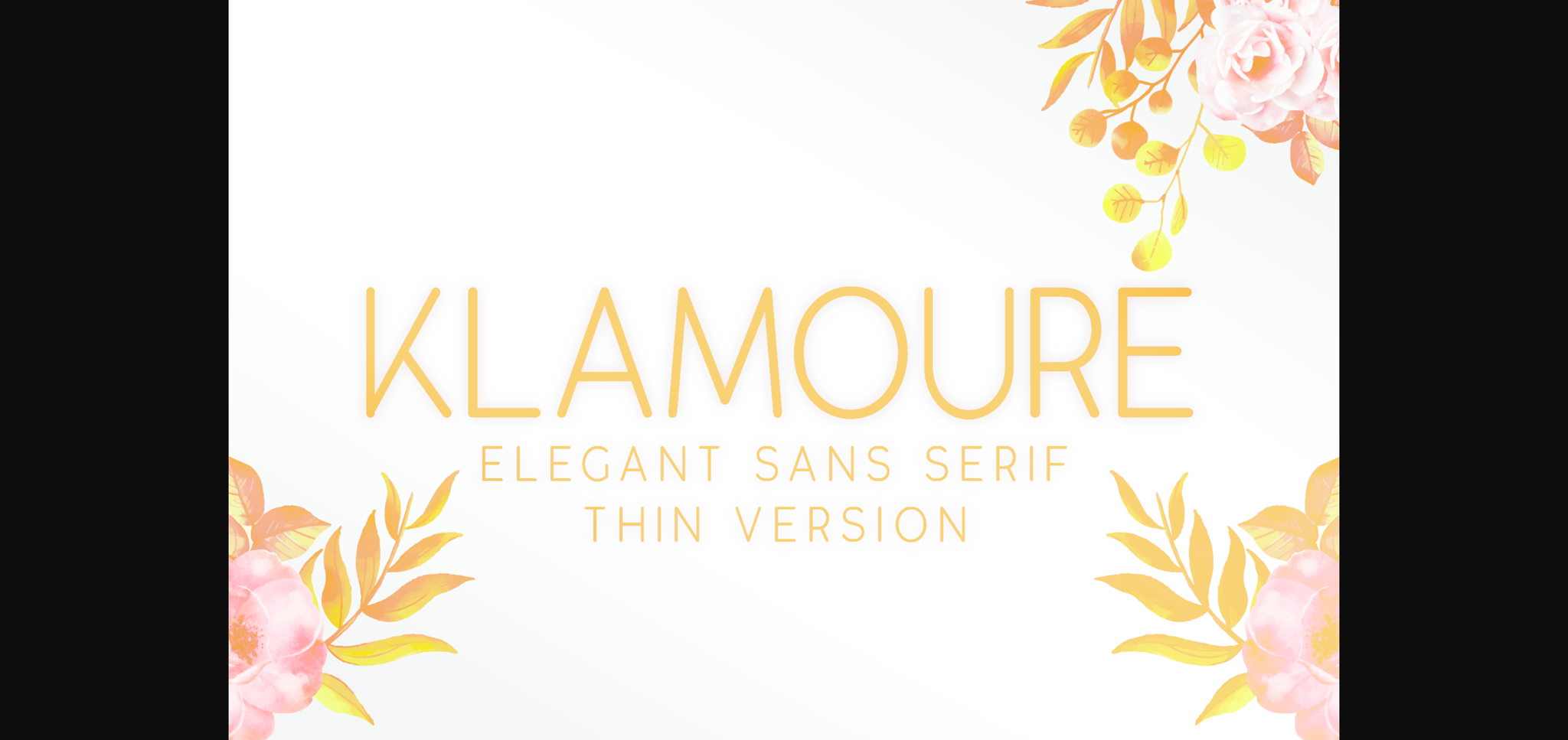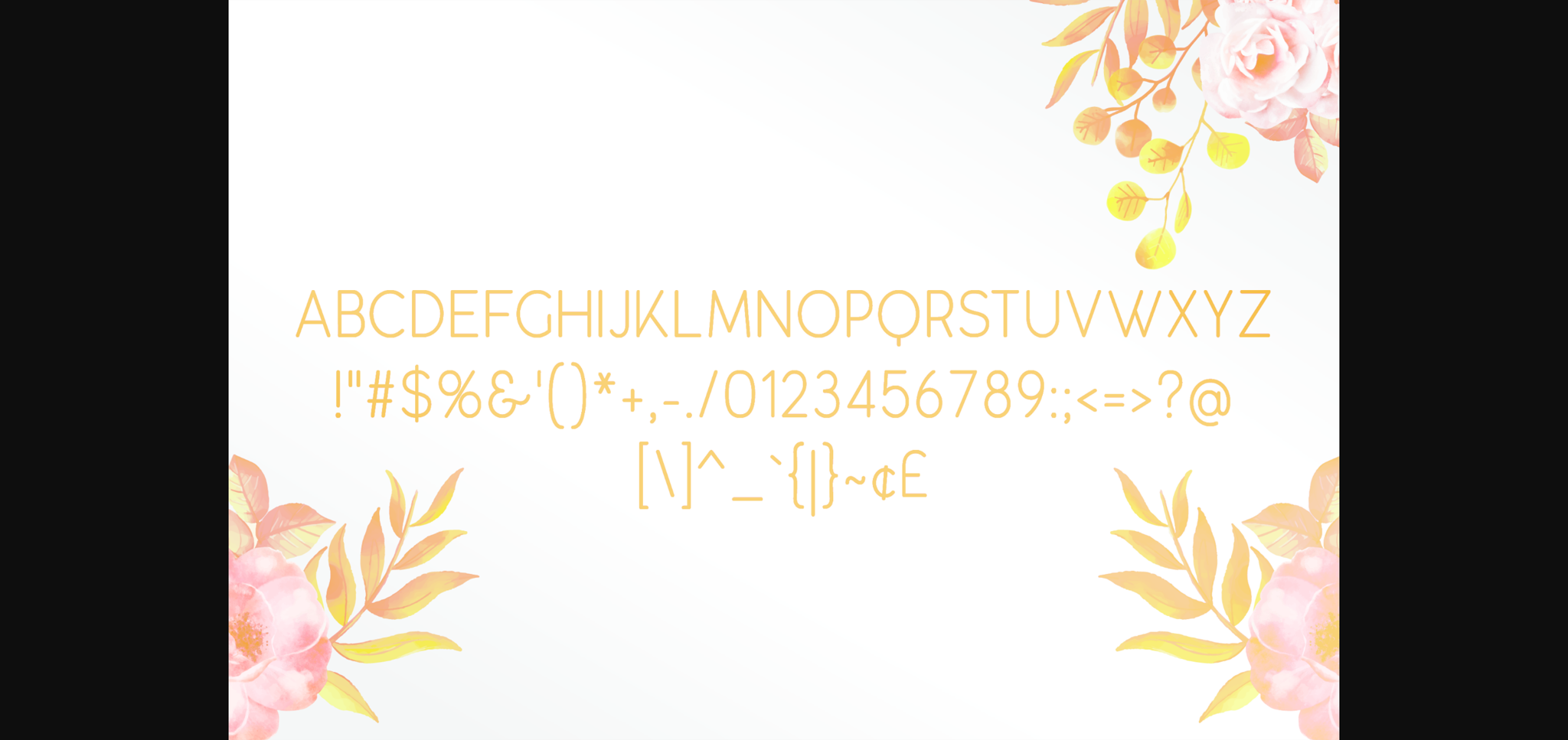
Klamoure Font
About Klamoure Font
Klamoure is a gorgeously simple sans serif font that radiates charm and life. Get inspired by its unique style, and turn any design idea into a true standout!